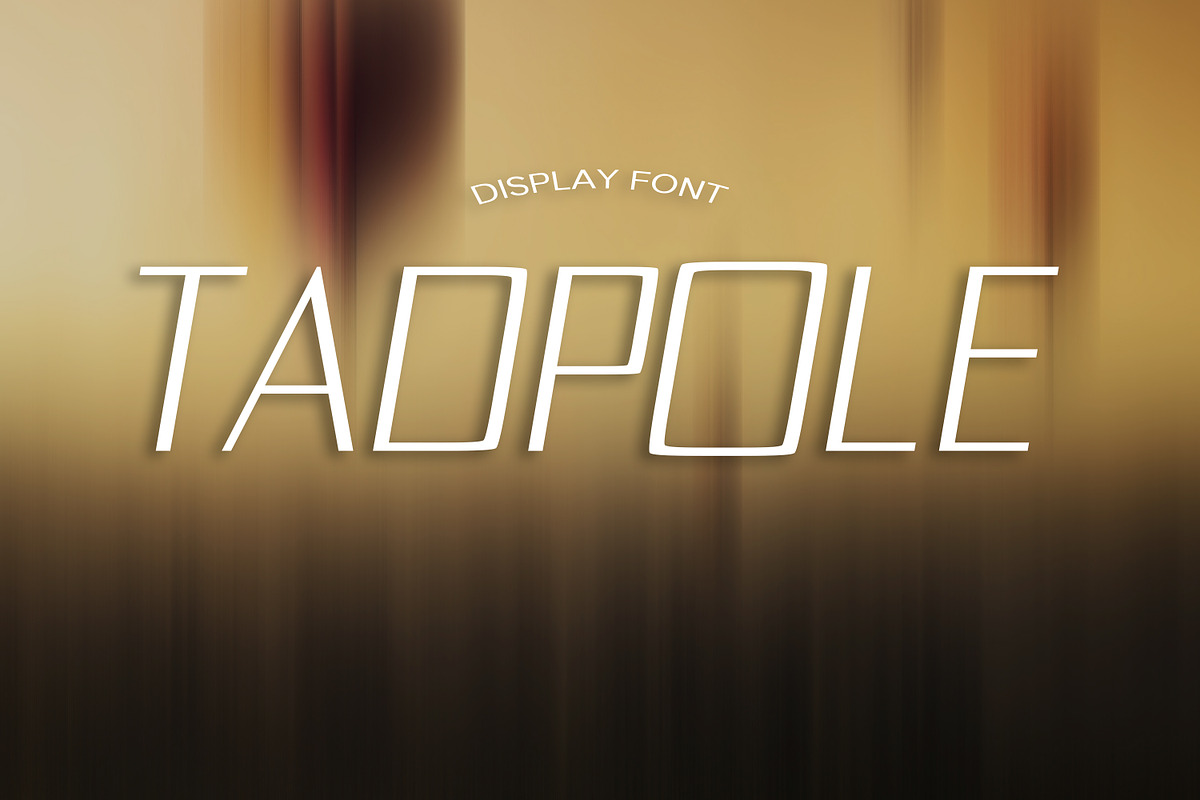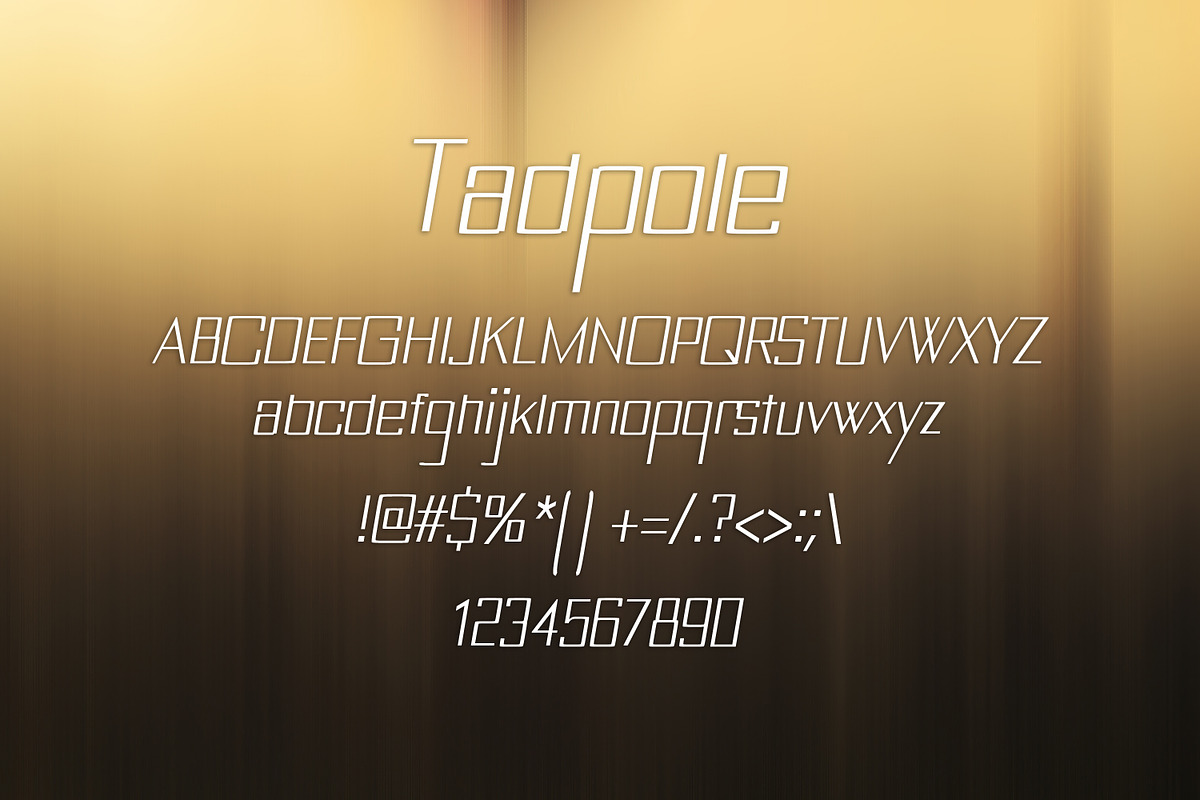
TADPOLE font
- Tadpole regular
Why TADPOLE font is worth a look
TADPOLE font by DmDesignsStoreArt fits naturally into Branding, posters, packaging, typography.